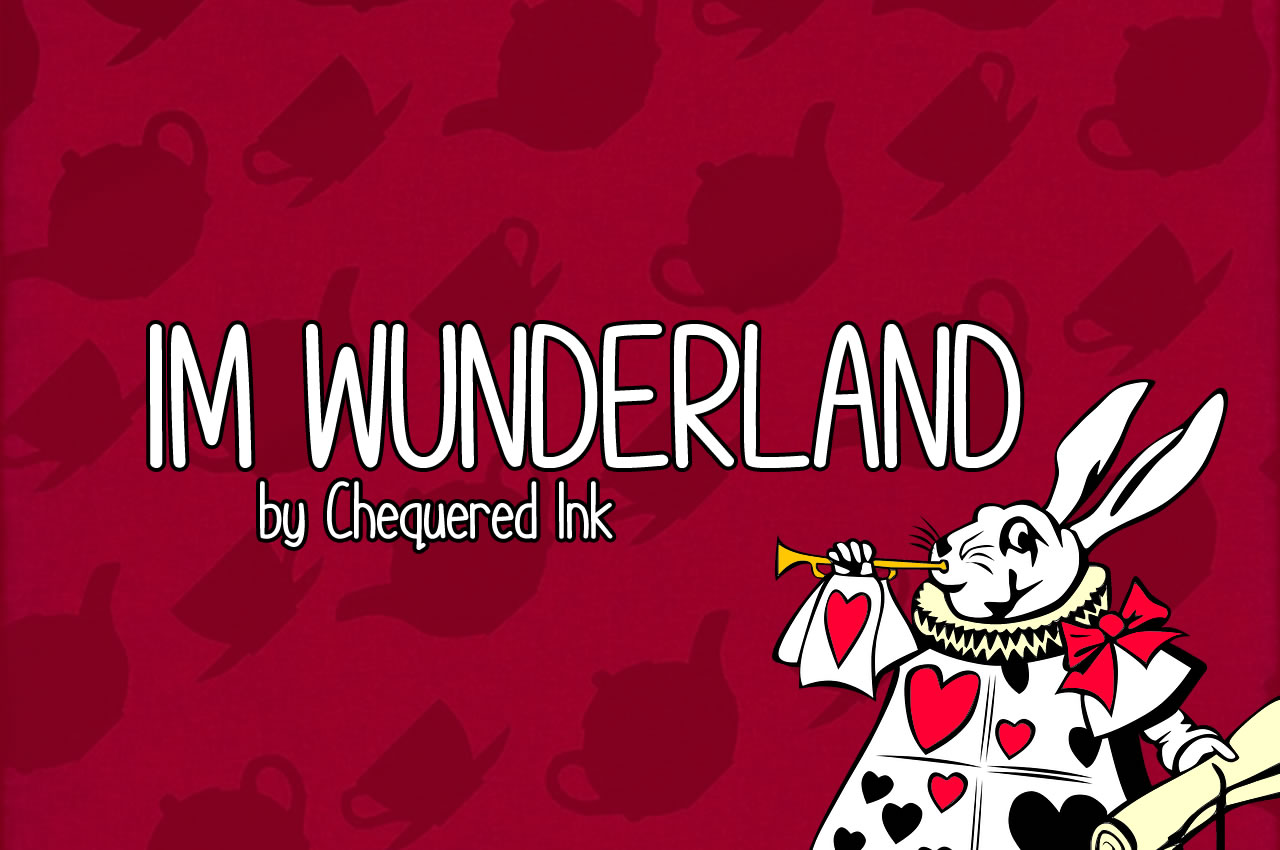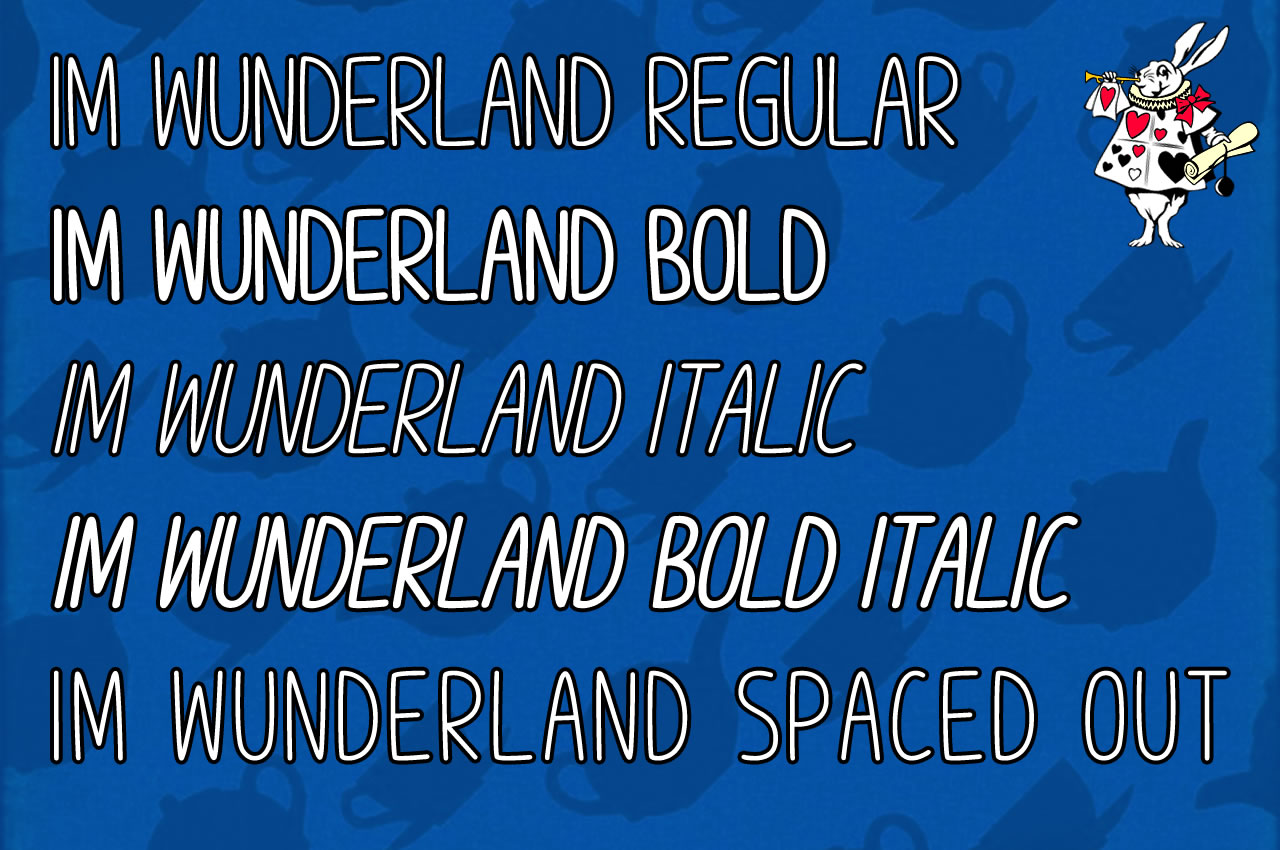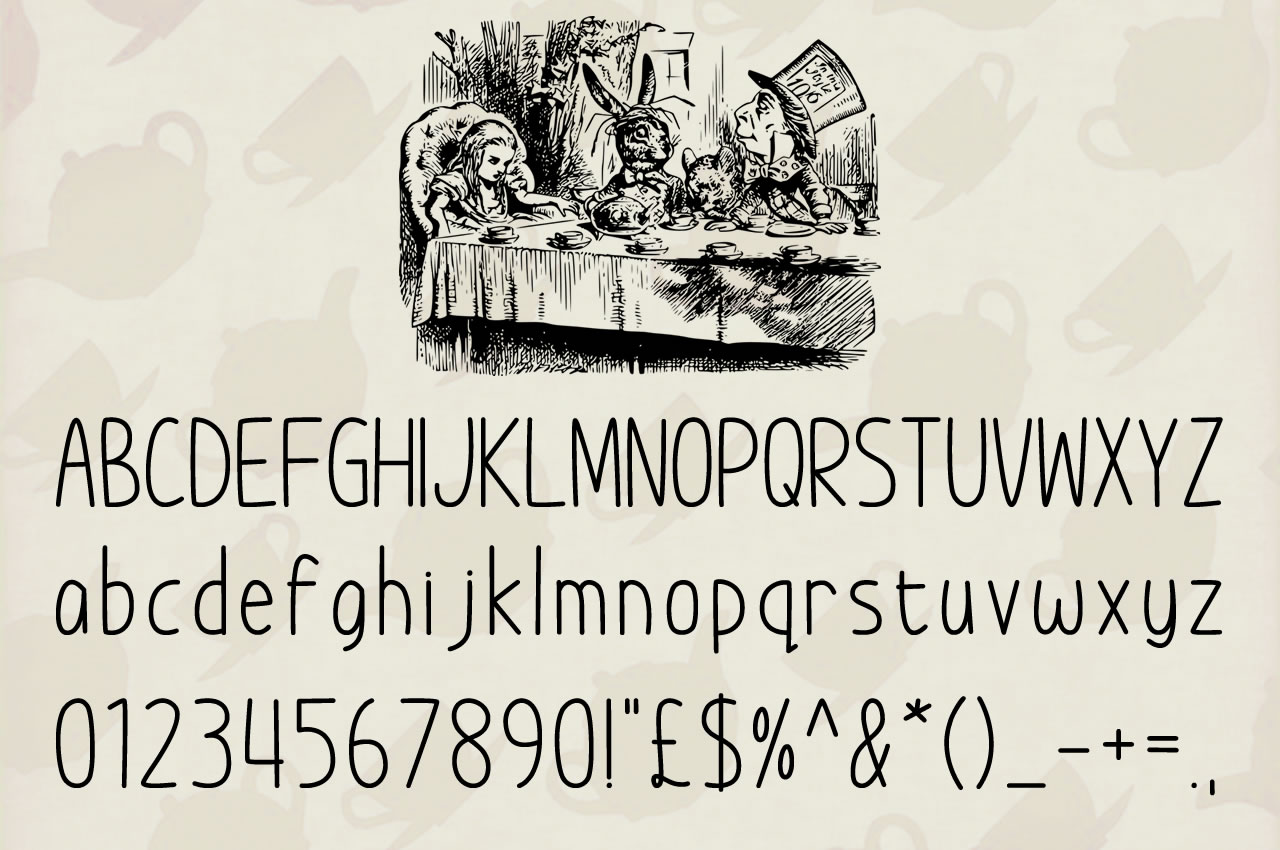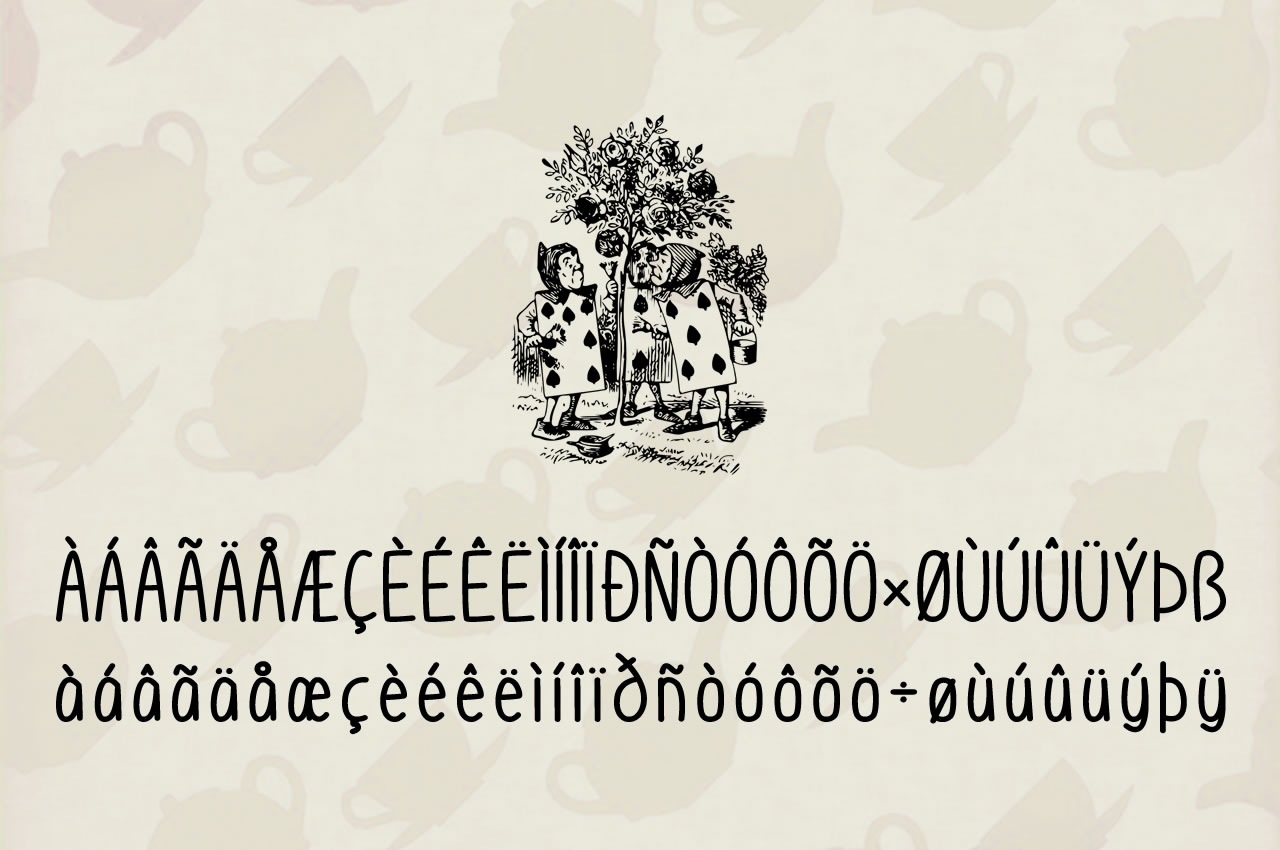
Im Wunderland Font
About Im Wunderland Font
Im Wunderland is a complete font family of different weights and styles, perfect for projects that require a cute little handwritten finish.